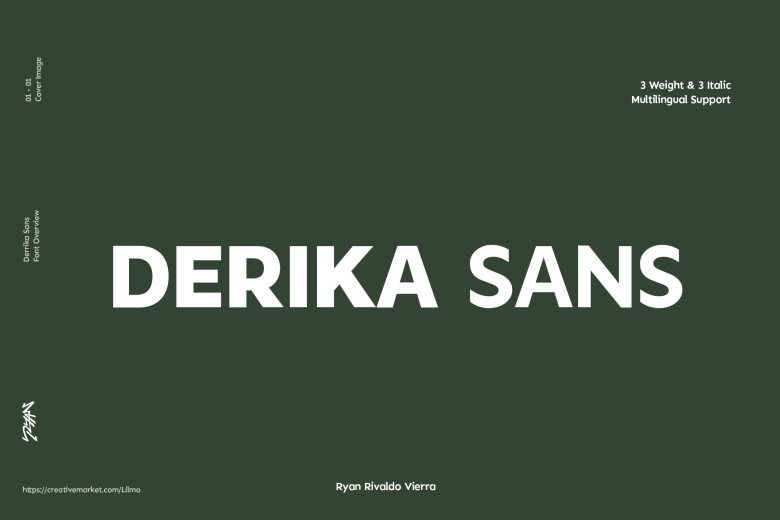
Derika Sans Font
Derika Sans Font is a new font by Ryan Rivaldo Vierra. The font gives you the appearance of being bold and stylish in nature, making it an excellent choice for headlines, titles and also to display logos on posters or other eye-catching aspects.
This font comes ready-engraved, meaning that there are bold features for each of the letter in the performance. You can access all those stunning glyphs and unique characters through PUA encoding!
Derika Sans Serif Font Family